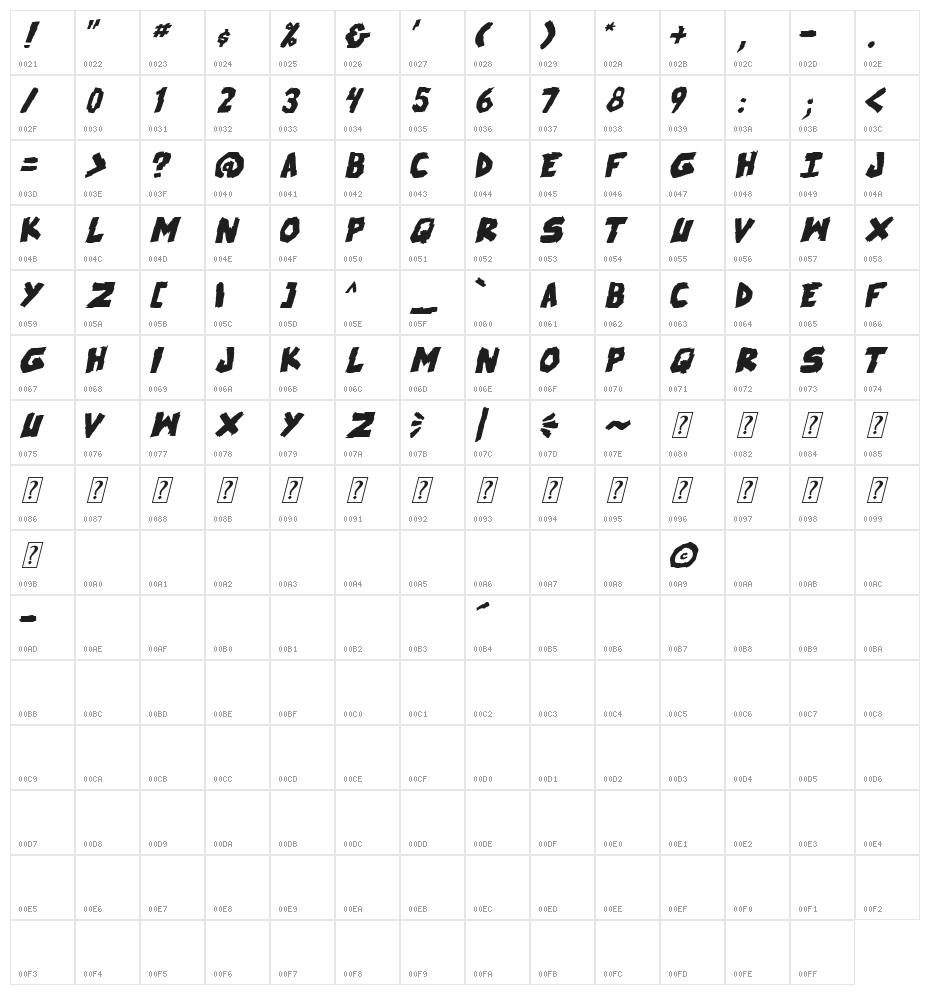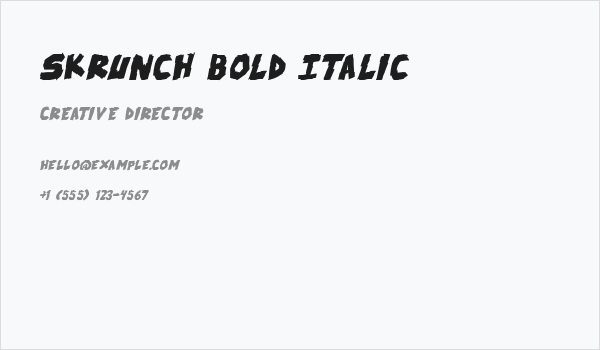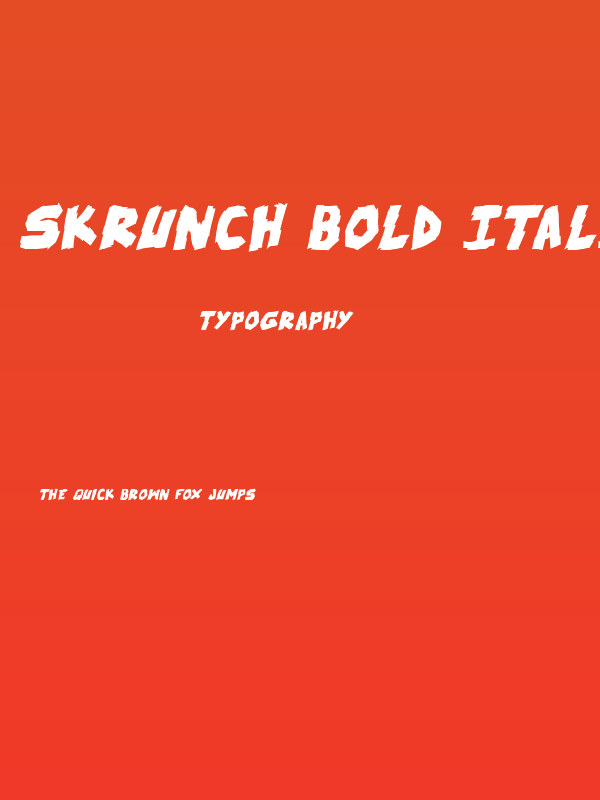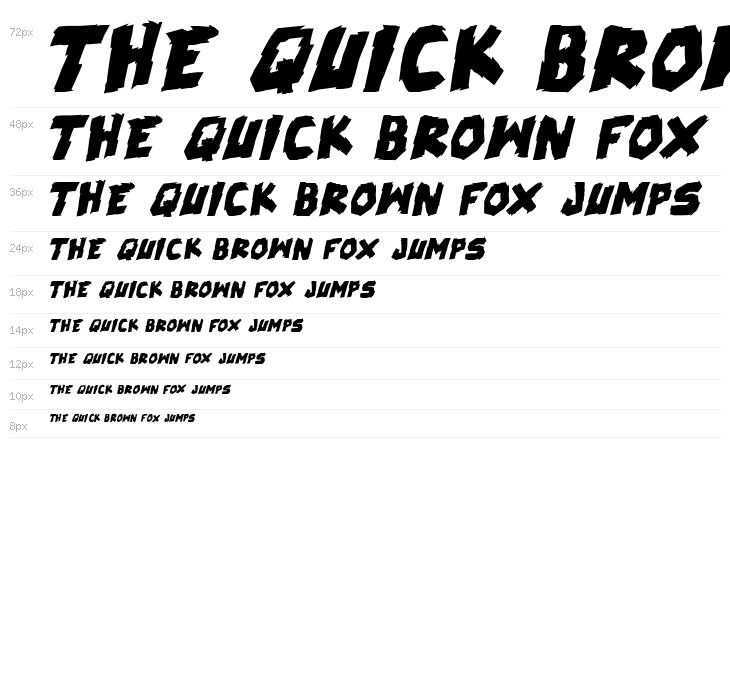
skrunch Bold Italic Font
skrunch Bold Italic Description
This font exhibits a bold and dynamic style with a strong italic slant, giving it a sense of movement and energy. The characters are thick and angular, with sharp edges and a slightly rough texture that adds to its rugged appearance. The uppercase and lowercase letters maintain a consistent style, while the numerals and special characters are equally bold and expressive. This font is designed to stand out and make a statement, suitable for attention-grabbing headlines or impactful designs.
| Overall Style | Modern, Dynamic |
| Proposed Projects | Ideal for sports branding, action-themed posters, dynamic logos, and eye-catching headlines. |